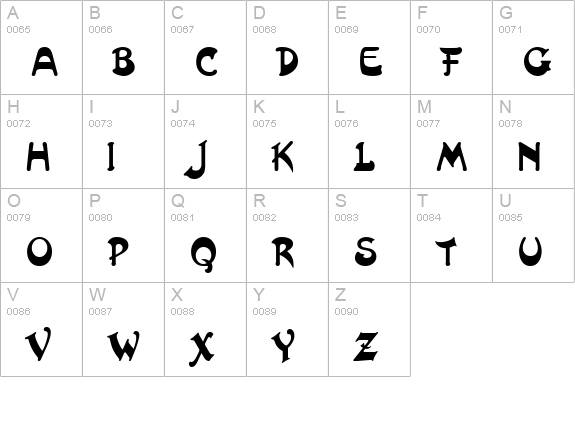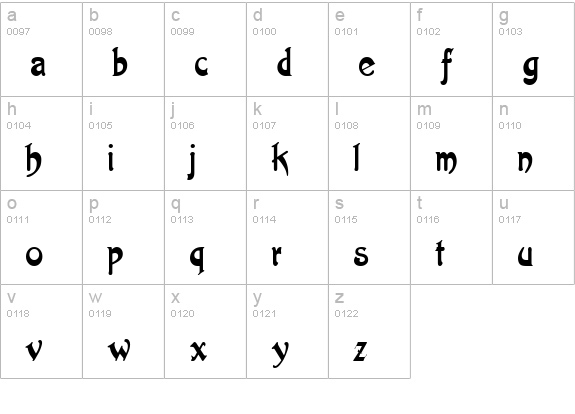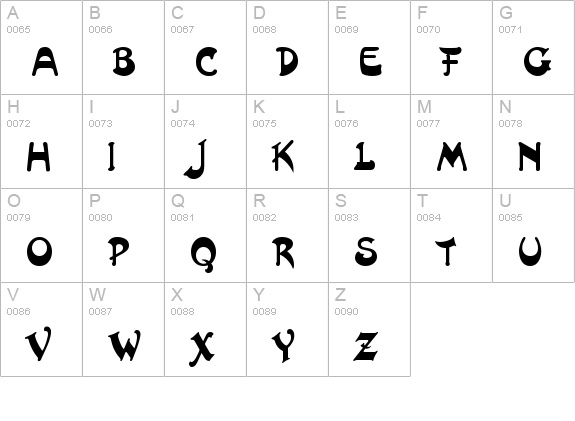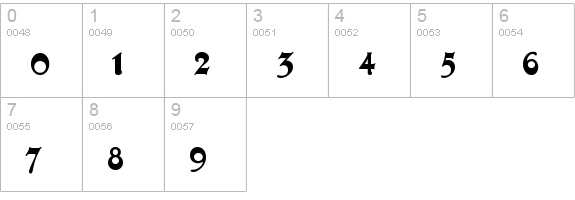
TR Artistik Font Details
TR Artistik font is a visually striking and modern typeface that exudes creativity and artistic flair. With its unique and expressive letterforms, this font is perfect for projects seeking to make a bold statement. The sleek lines and sharp angles of TR Artistik bring a contemporary edge to any design, making it ideal for branding, packaging, posters, and more. What's even better is that TR Artistik font is completely free to download at FontsMarket.com. This means you can easily access this eye-catching typeface without breaking the bank. Whether you are a professional designer looking for a fresh font to add to your collection or a student working on a creative project, TR Artistik is a versatile and stylish choice that won't cost you a penny. Don't miss out on the opportunity to enhance your designs with this free and dynamic font today.